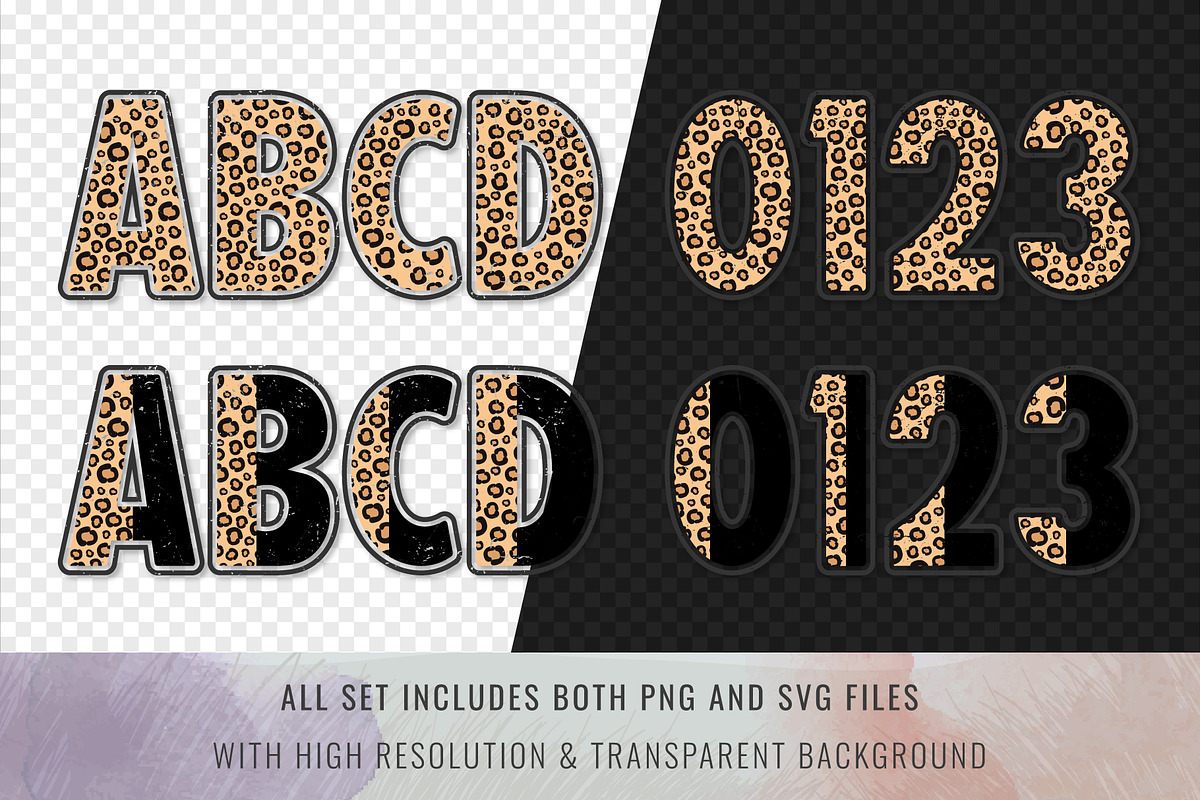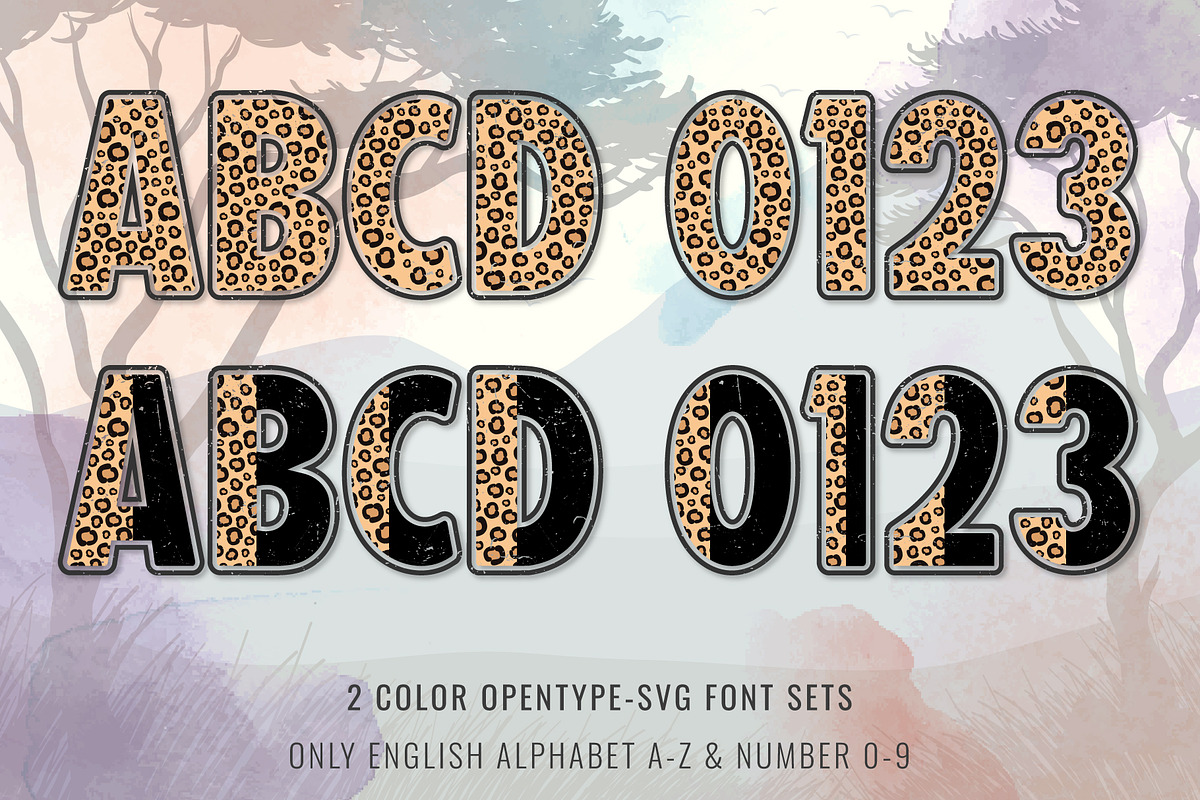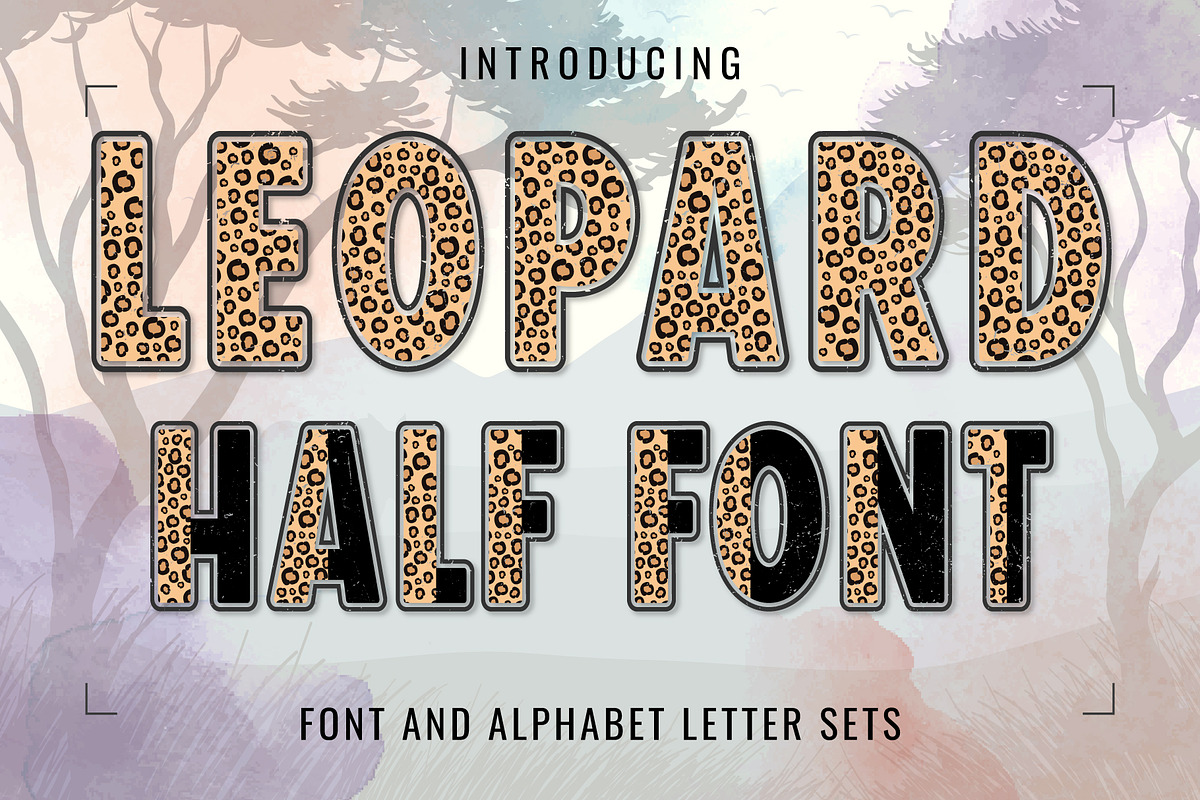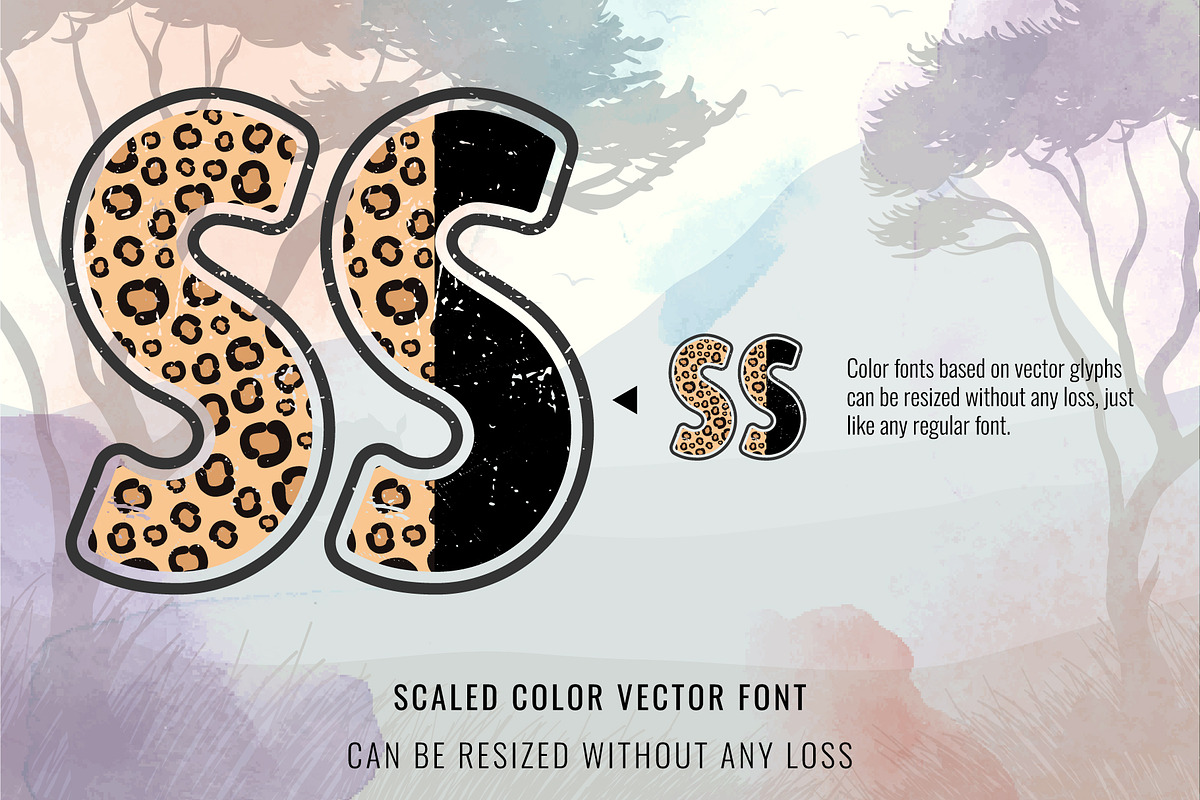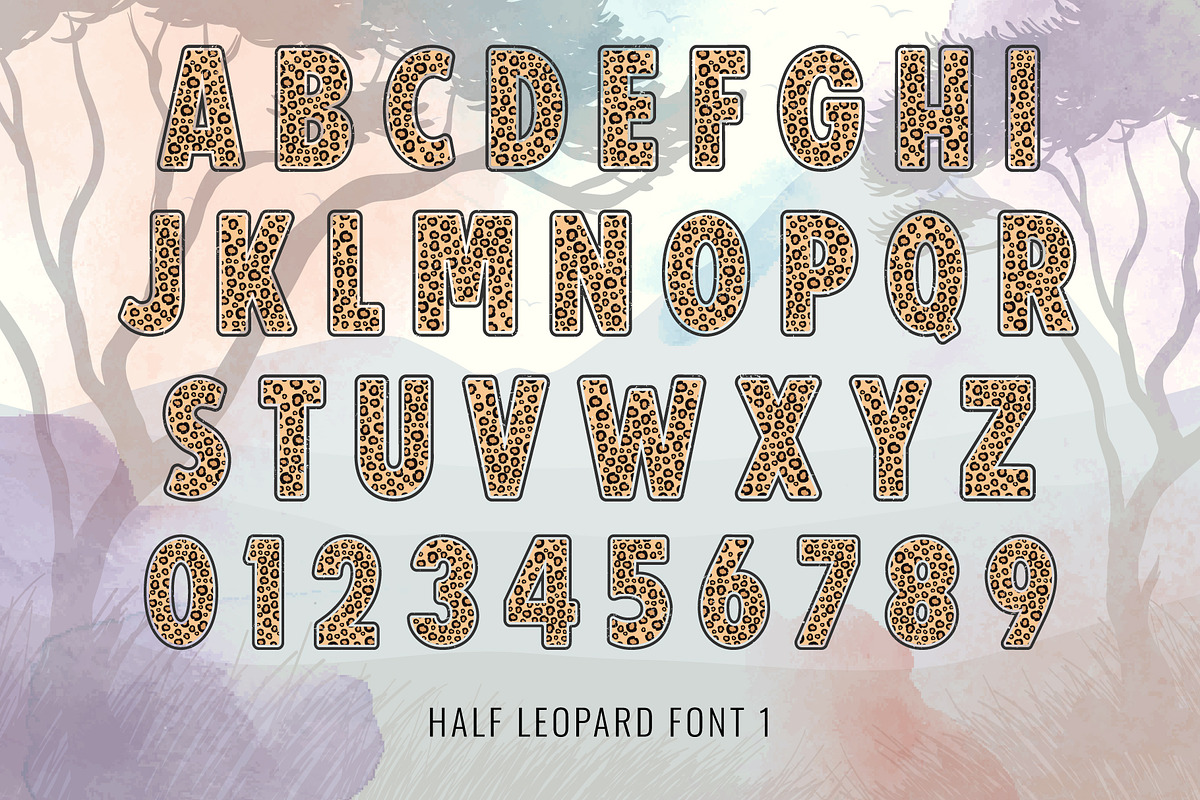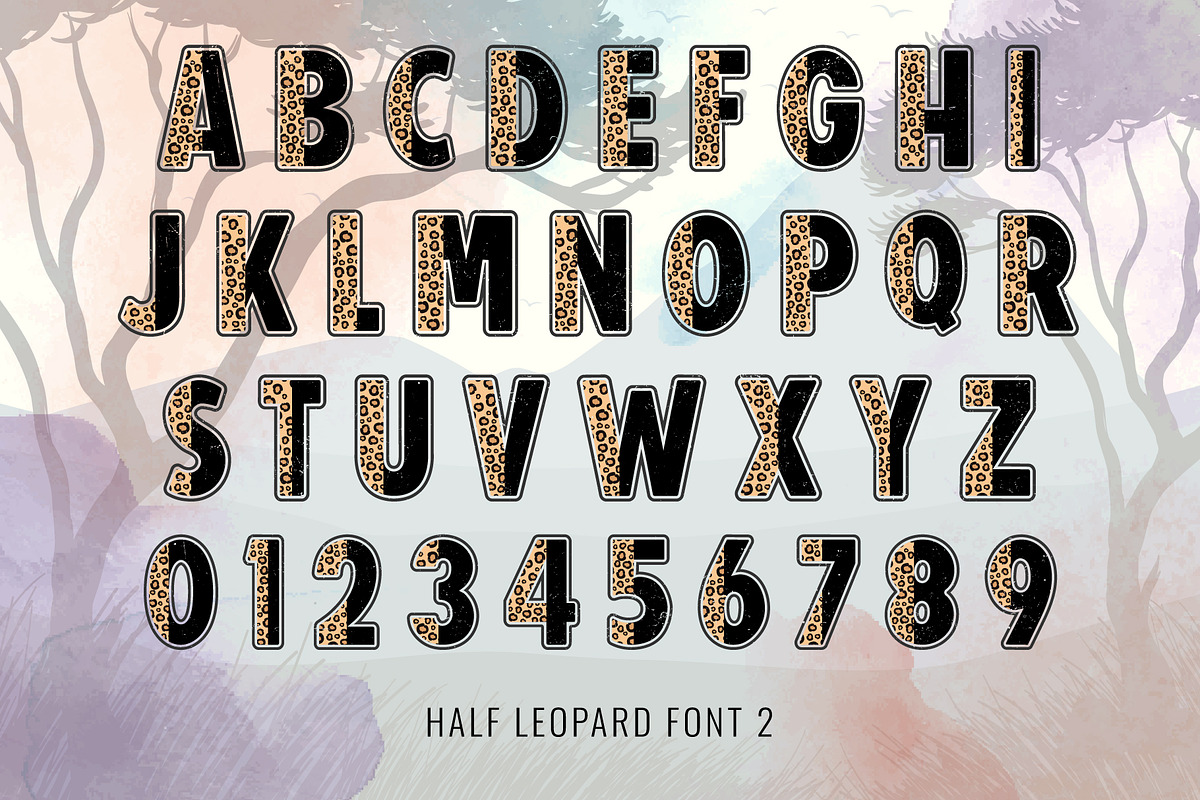
Half Leopard Font
Introducing “Half Leopard Font” – a cool, leopard skin color font that exudes wildness and sophistication. With its sleek curves and spotted texture, this font adds a touch of exotic flair to any design. Perfect for fashion branding, posters, and promotional materials, it brings a fierce yet stylish edge to your projects.
- 2 Color font sets in the family.
- This OpenType-SVG (or Color Font) Font is made from color vector graphics that can be resized without any loss, just like any regular font. The resolution of an OTF file is roughly 1,100 px in height.
- This entire font is capitalized.
- Only the English language is available.
- Letters: A B C D E F G H I J K L M N O P Q R S T U V W X Y Z.
- Numbers: 0 1 2 3 4 5 6 7 8 9.
- Excluding punctuation.